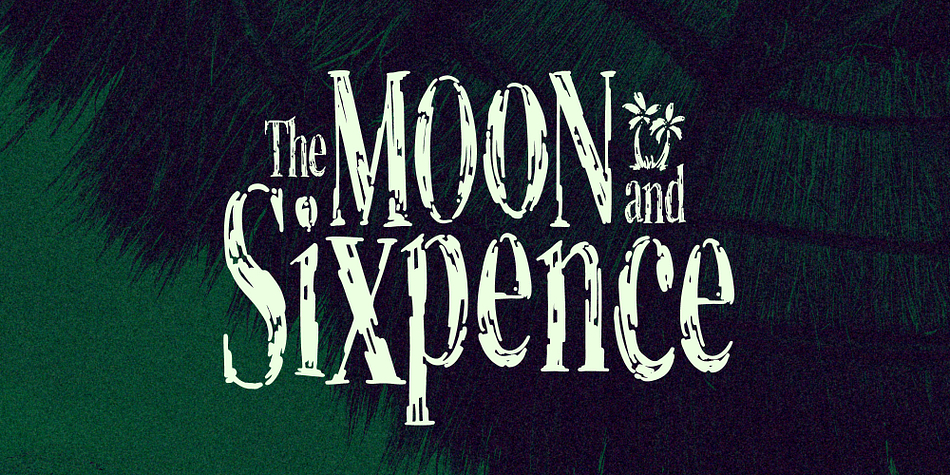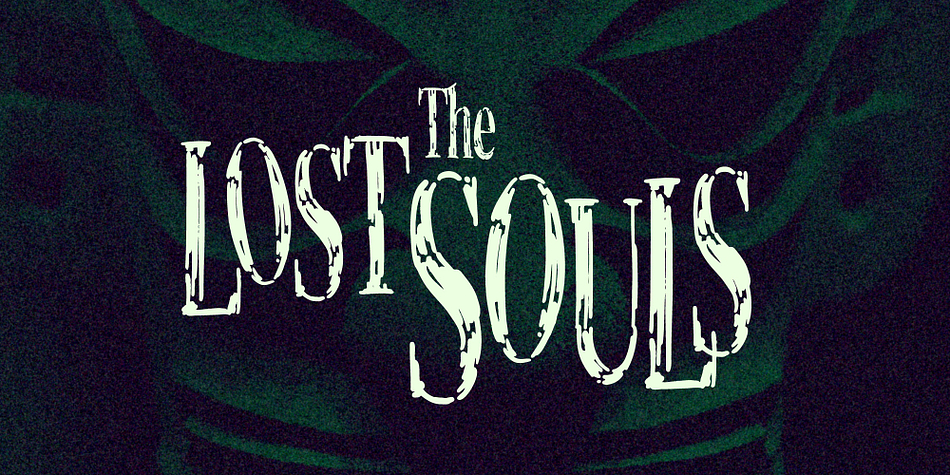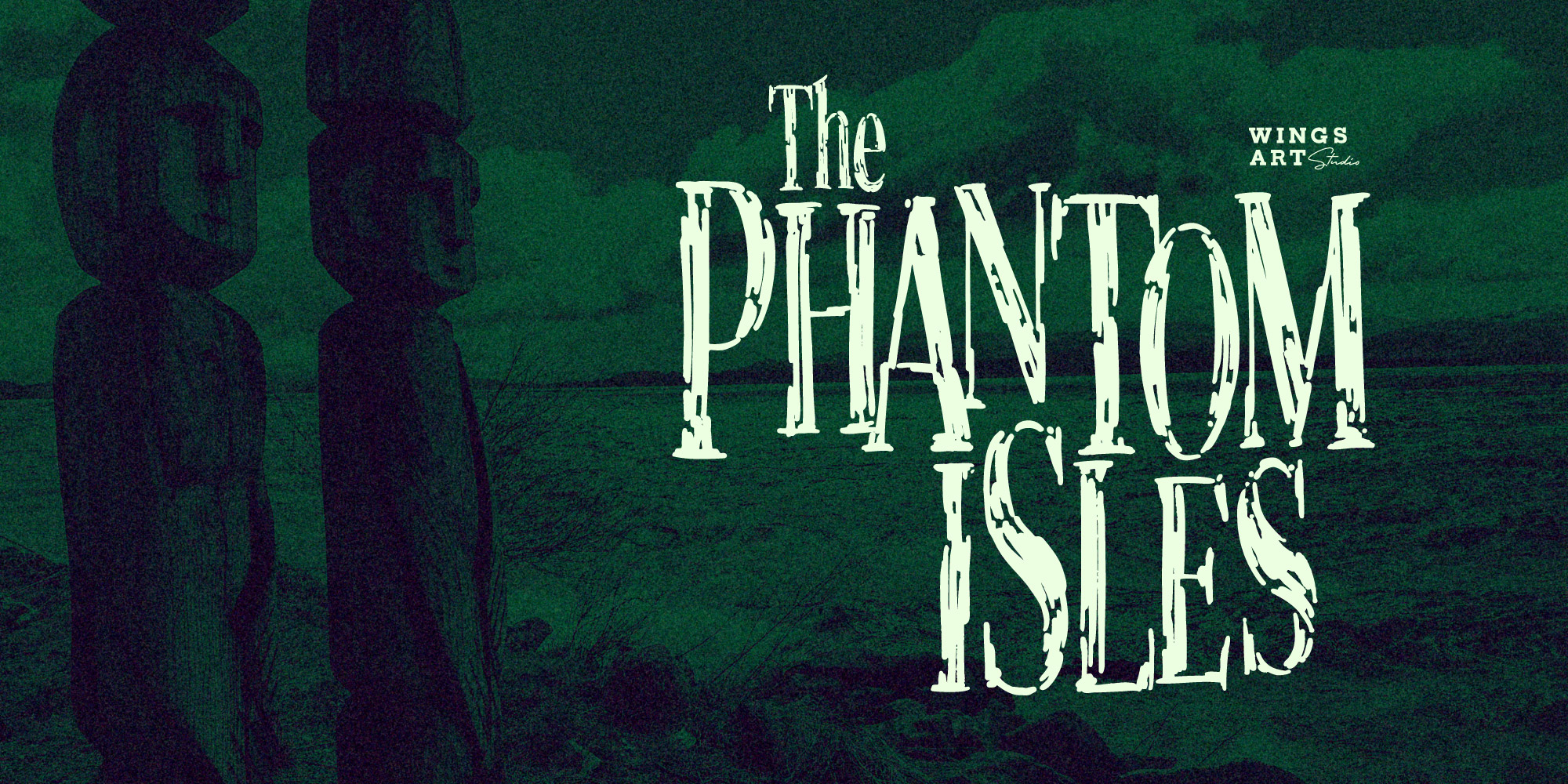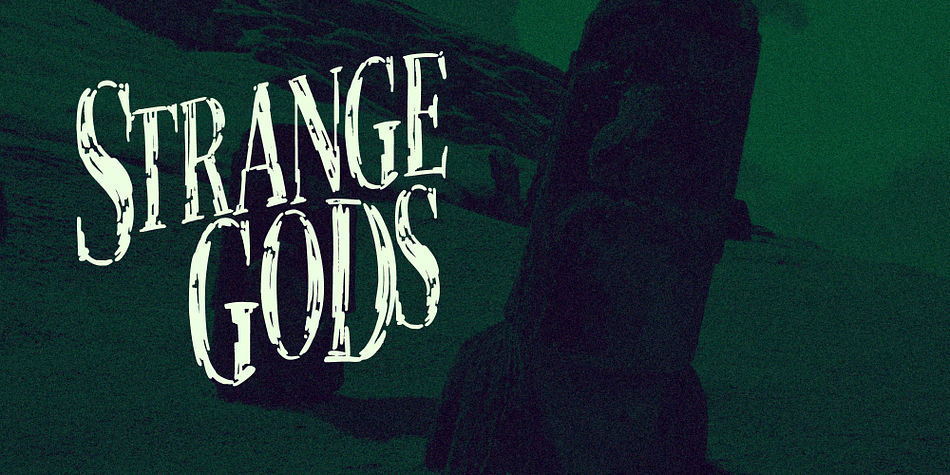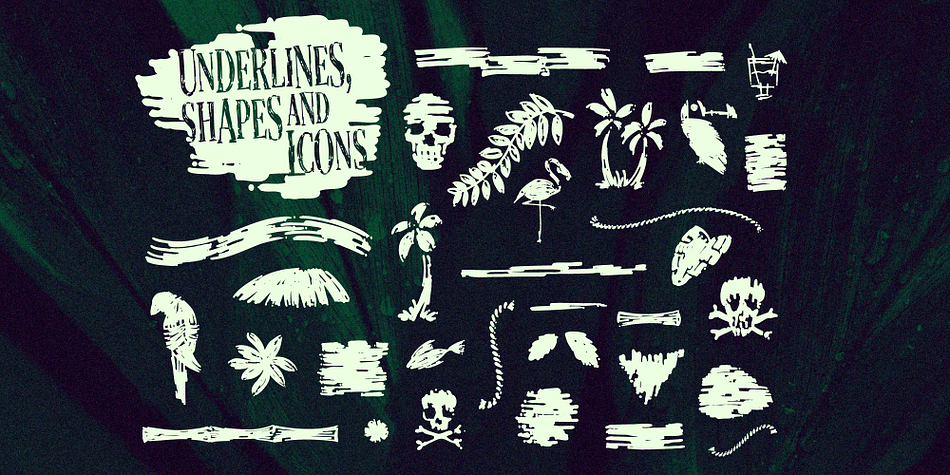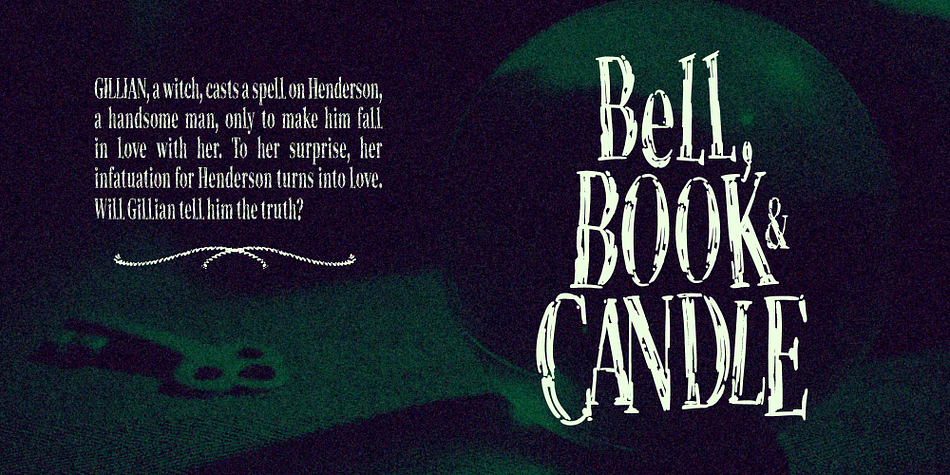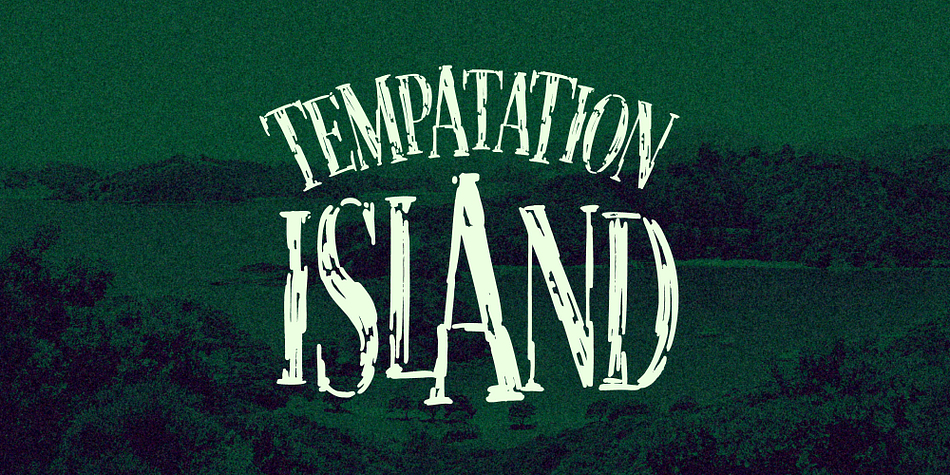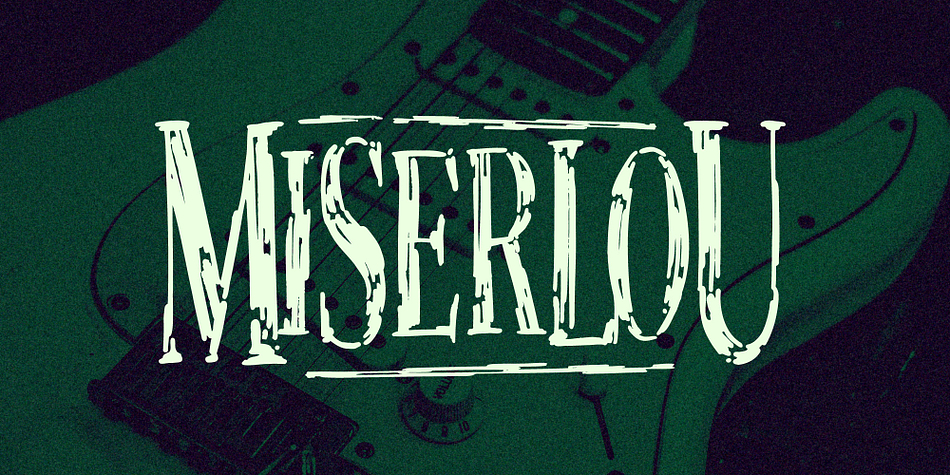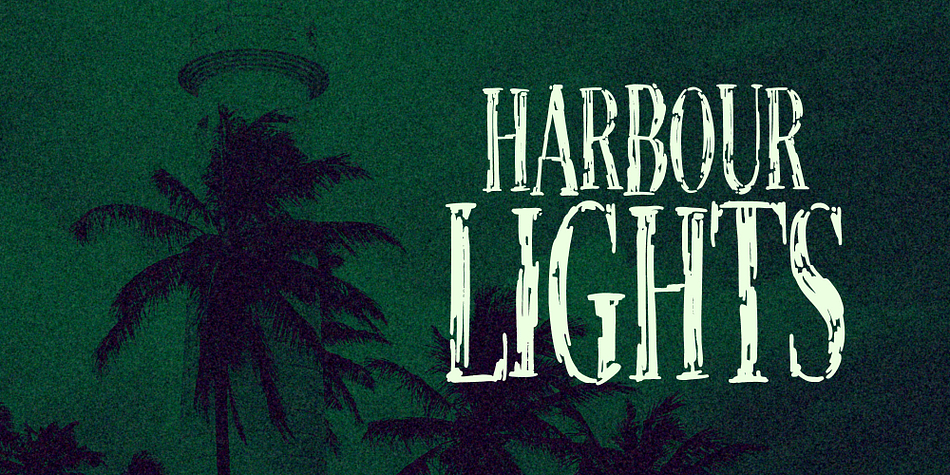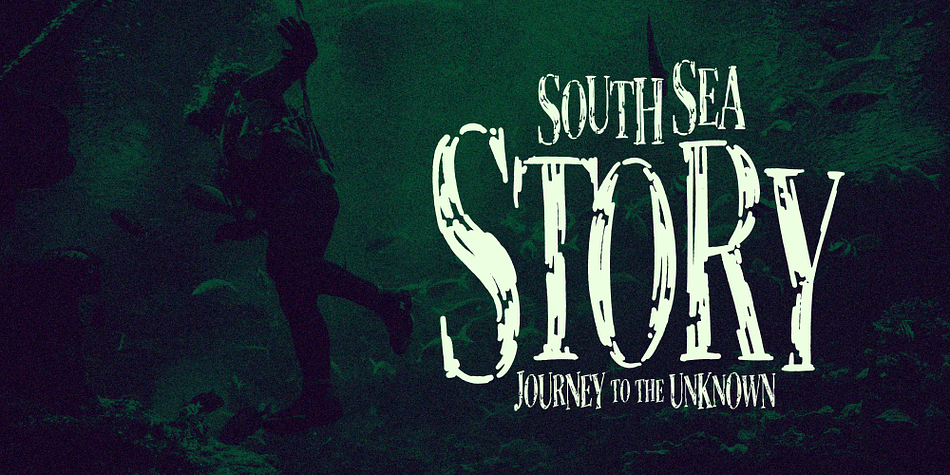
The Phantom Isles
The Phantom Isles is a serif and dingbat font family. This typeface has two styles and was published by Wingsart Studio.
A Textured Retro Font Inspired by Tropical Tiki Style and South Sea Adventures!
The Phantom Isles is a hand-drawn font inspired by 1950s Tiki culture, tales of exotic locations and South Sea adventures. It features the textured look of weathered wood and is the perfect choice for book covers, movie titles, theme parks or vintage-themed events.
The font includes a complete set of uppercase and lowercase characters, along with numbers, punctuation, symbols and language support. You’ll also find a set of specially illustrated underlines, shapes and icons including flora and fauna, old rope, skulls and more.